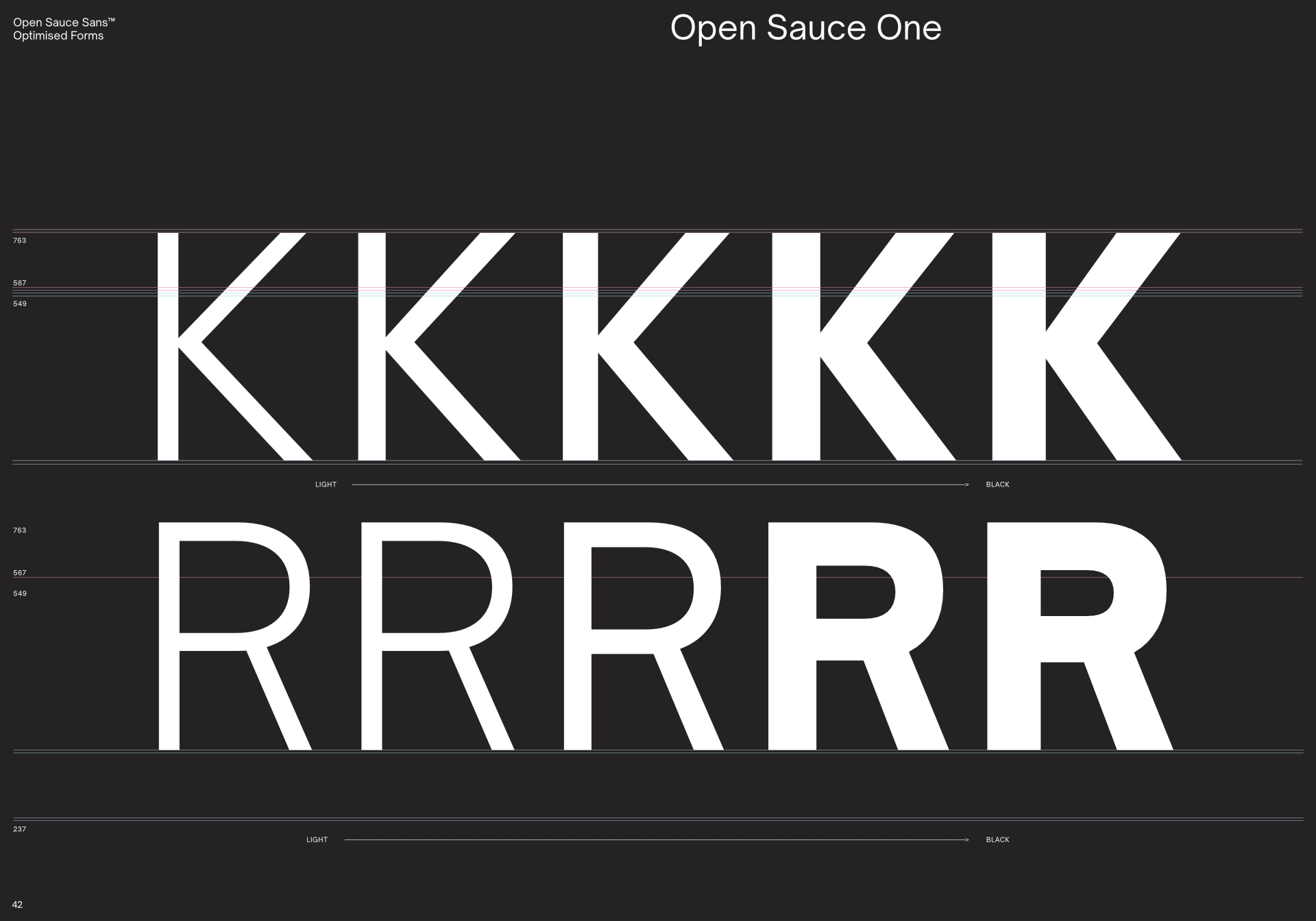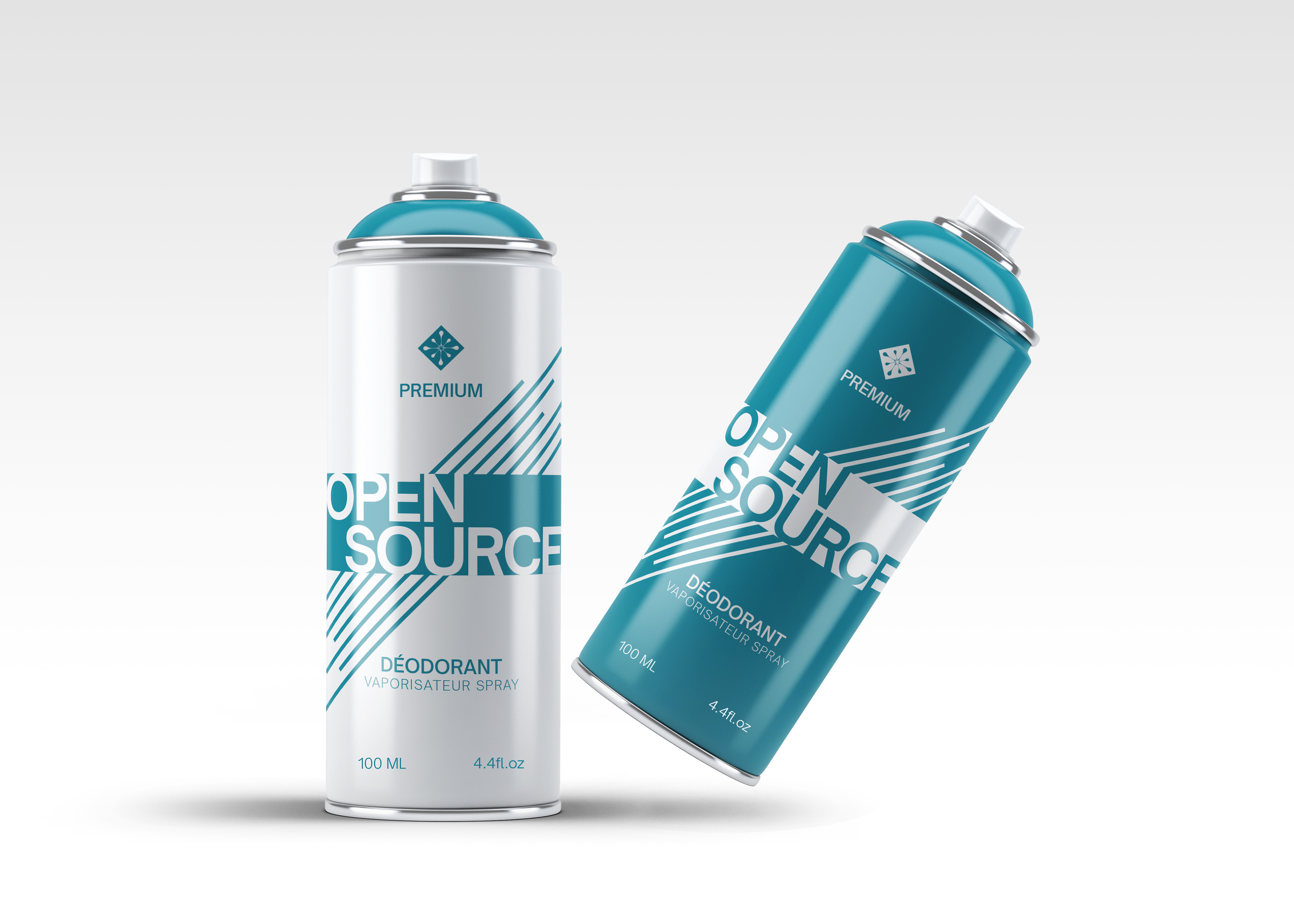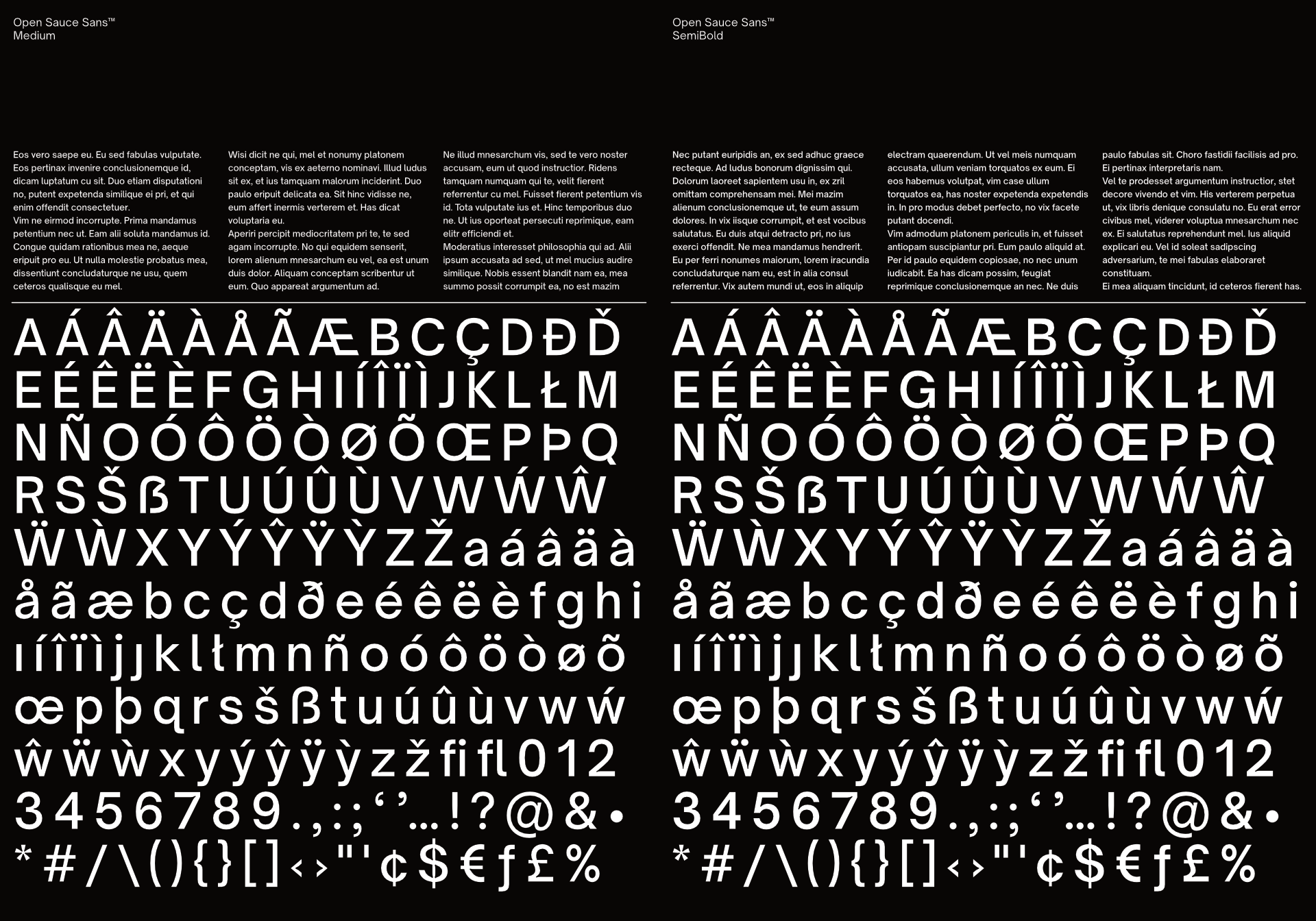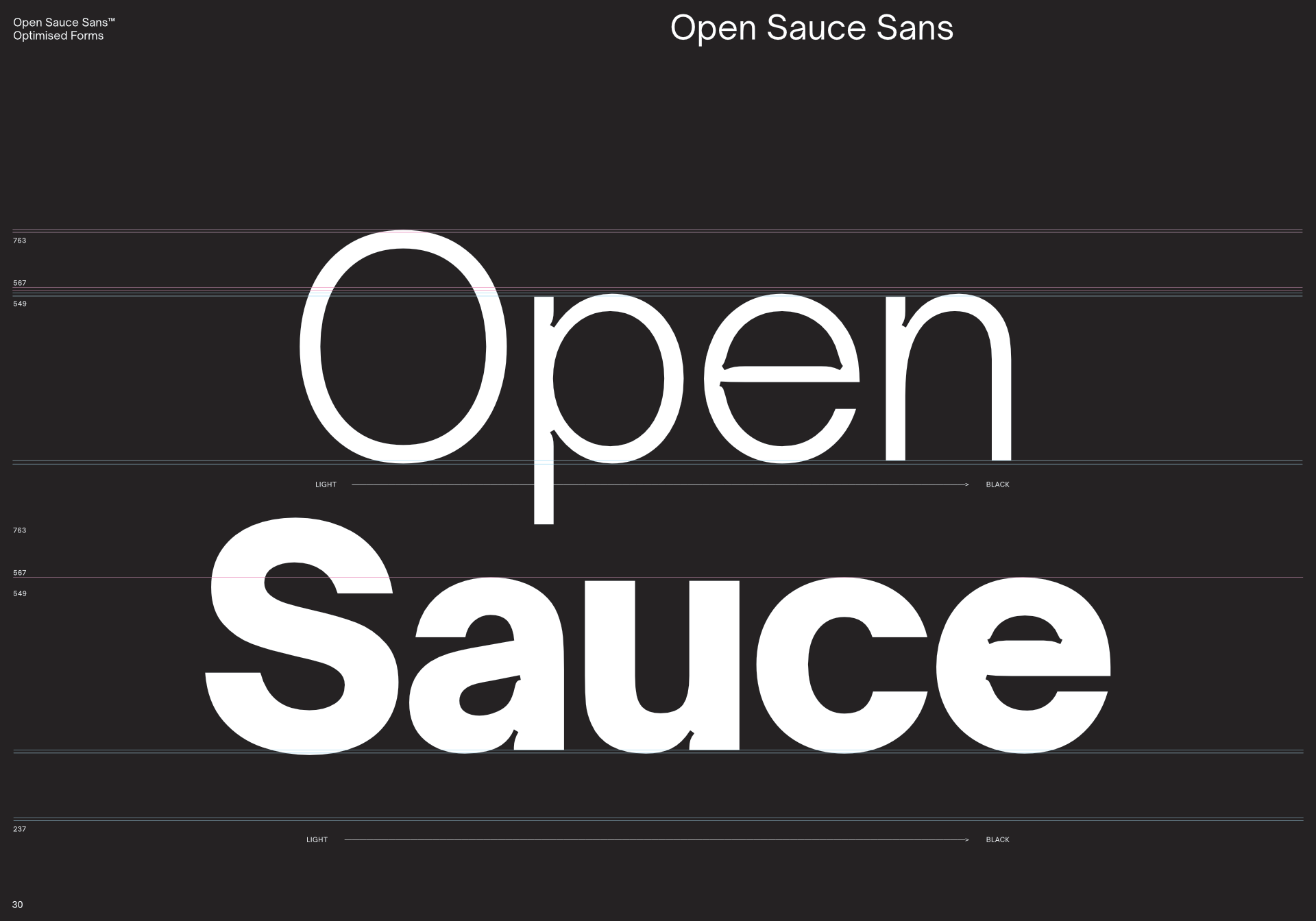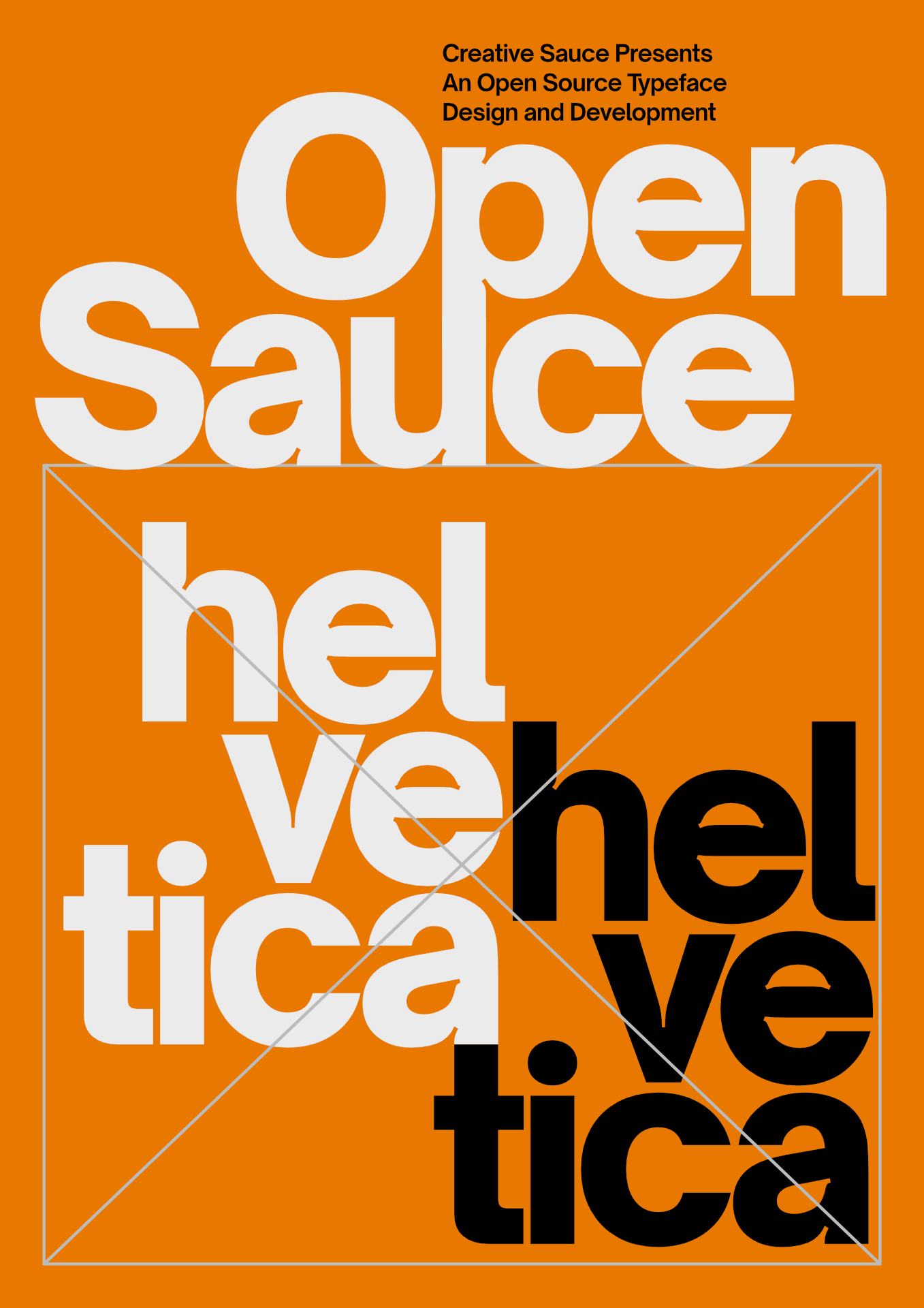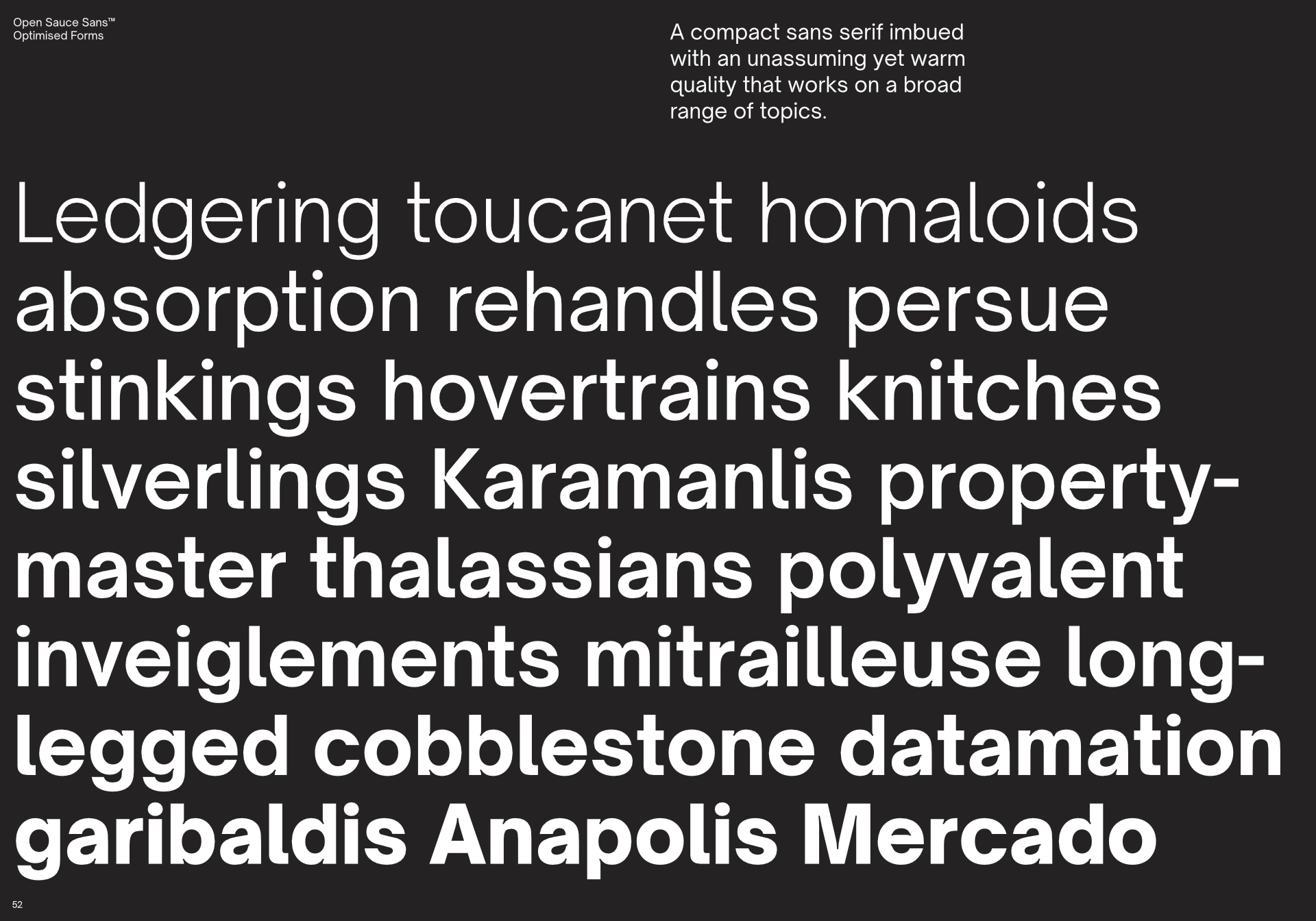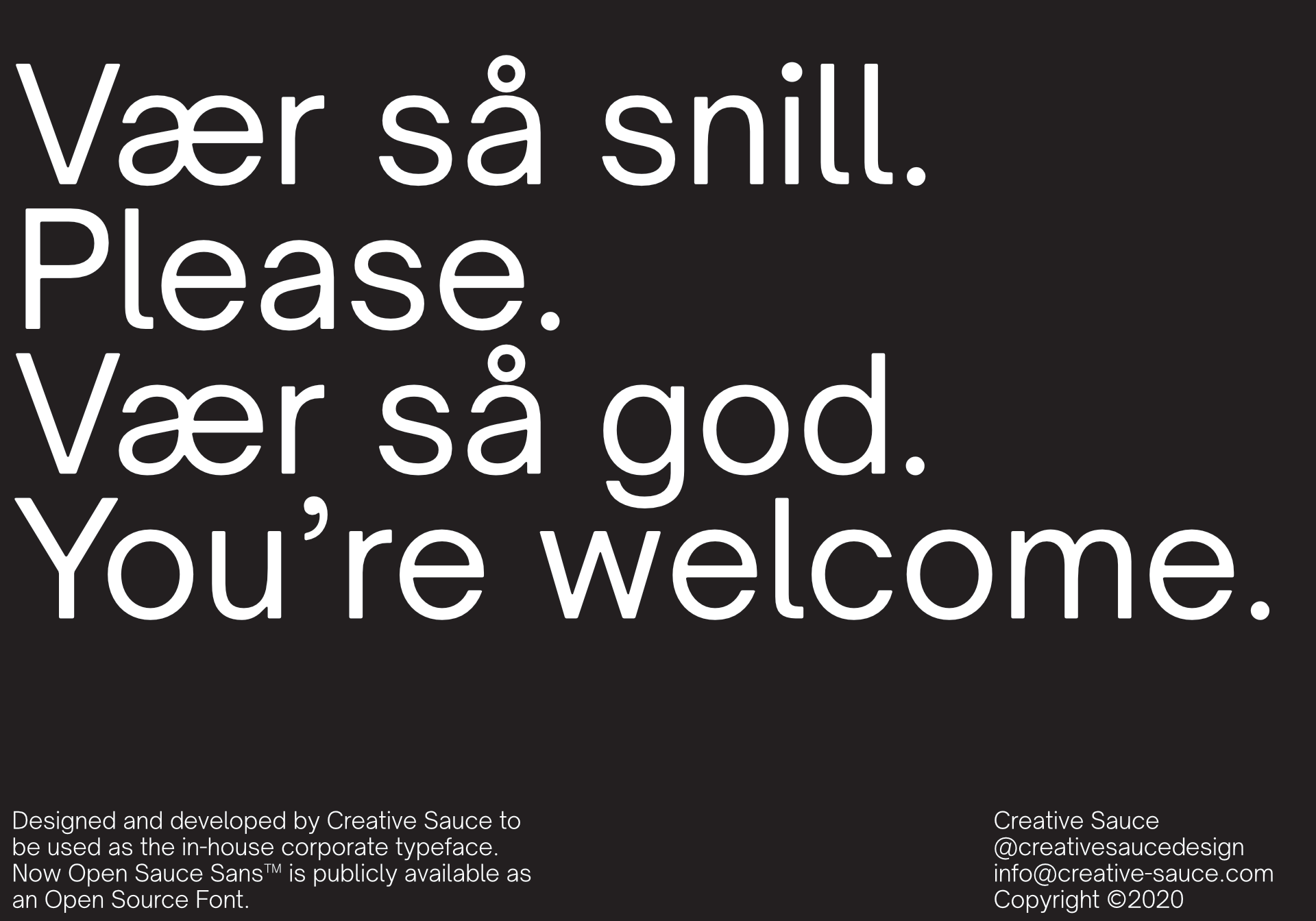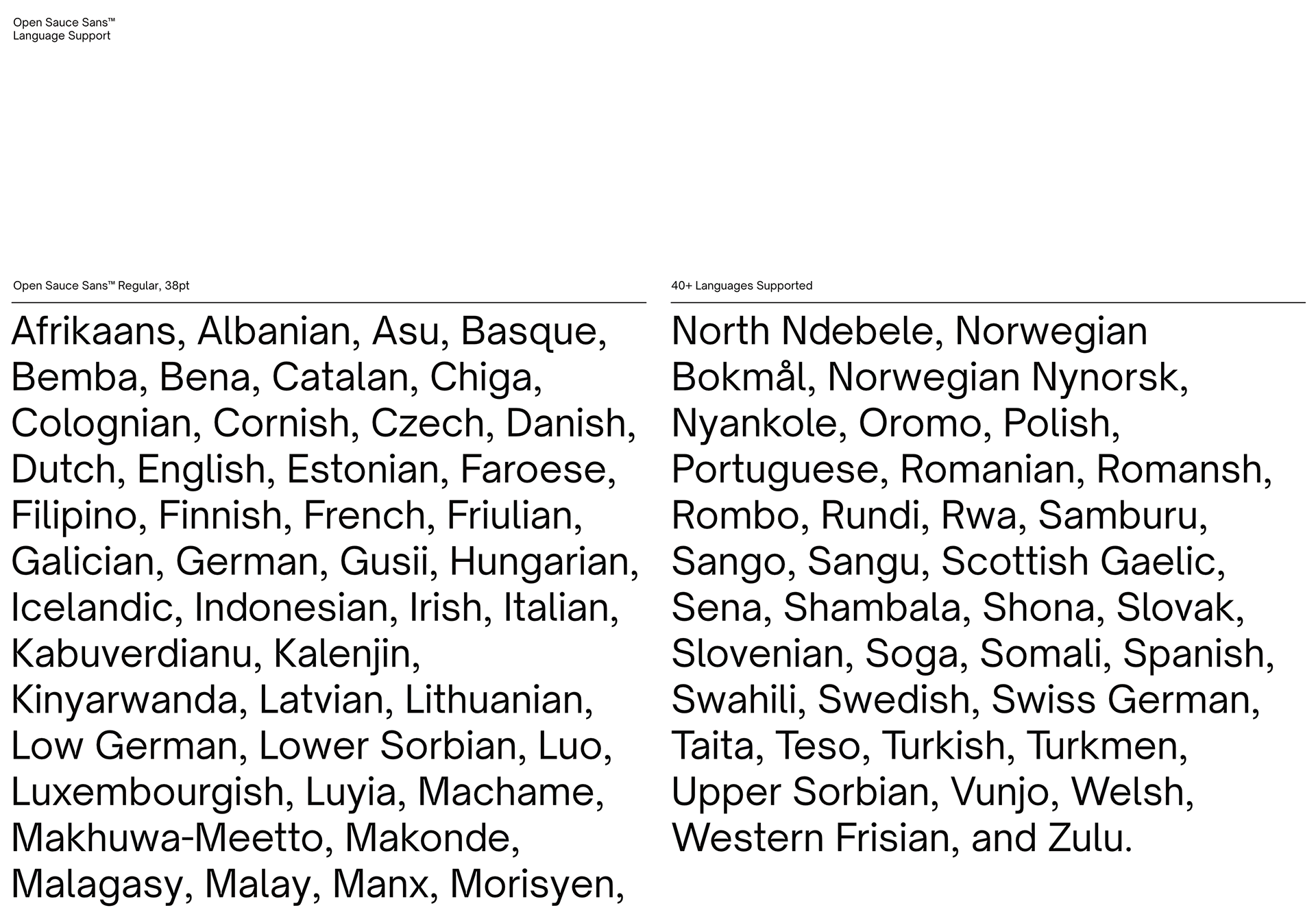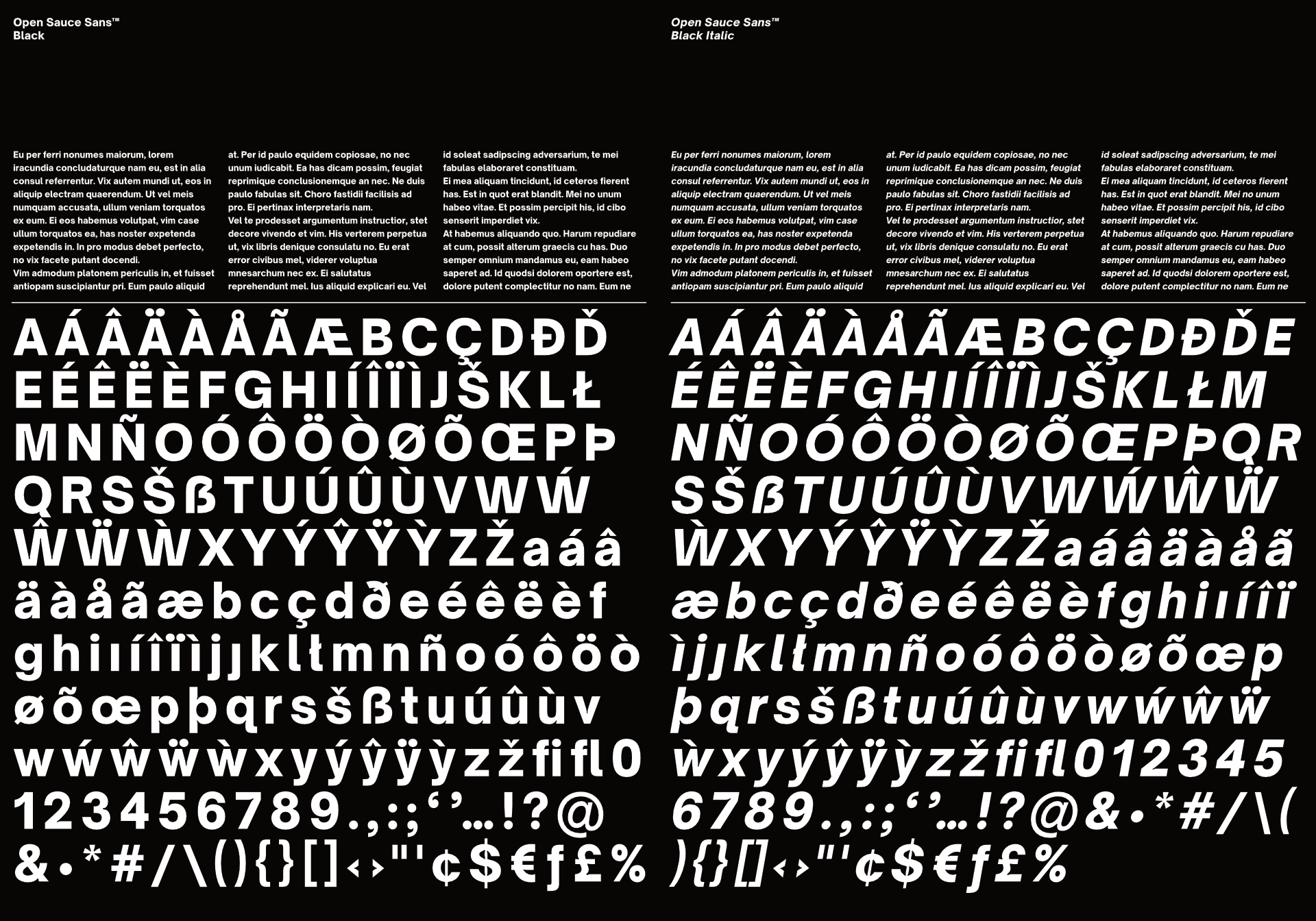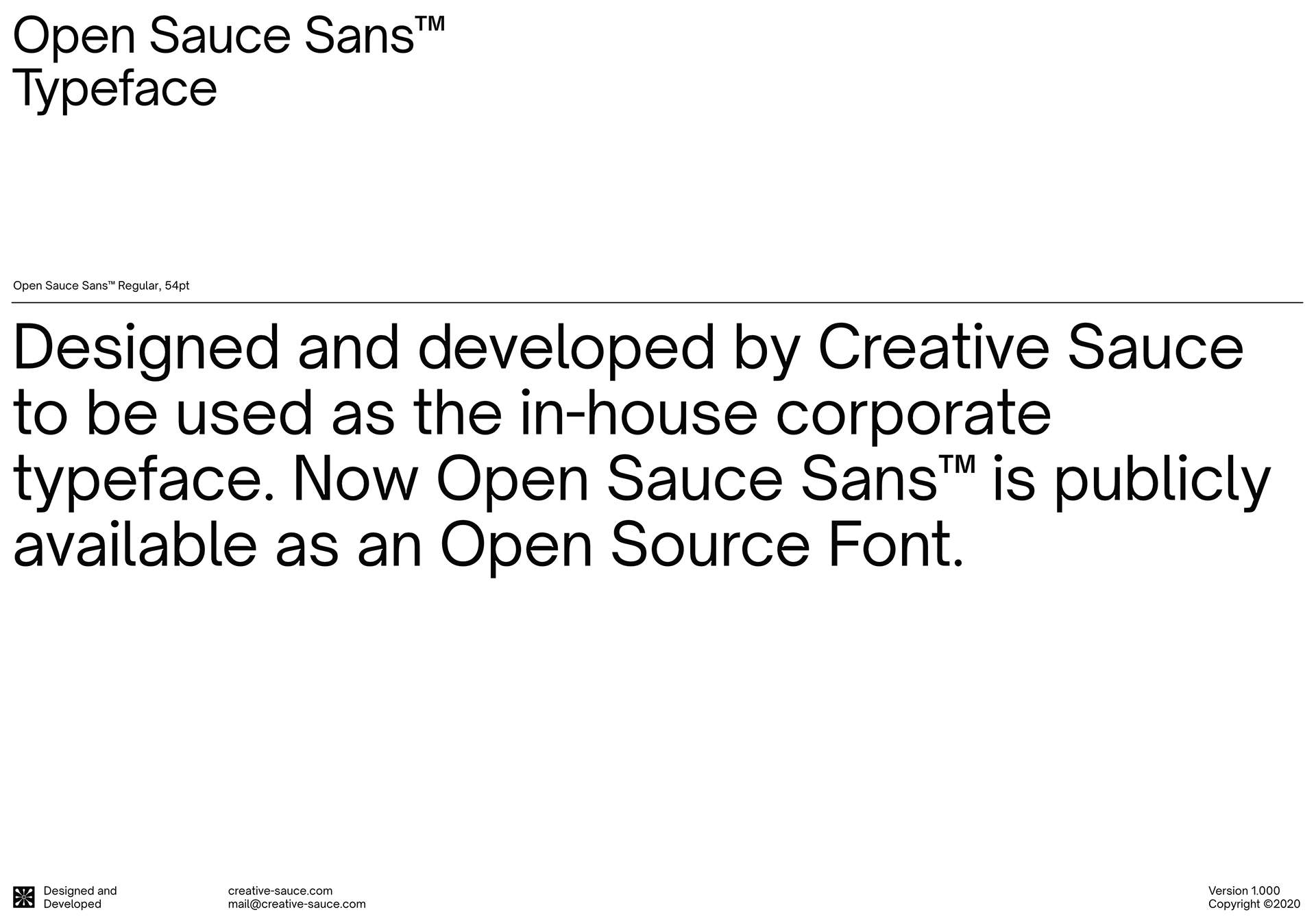
Open Sauce Sans™/Open Sauce One™/Open Sauce Two™ is a typeface that I developed for Creative Sauce's internal type system. It is a compact typeface that is optimised for better viewing small text on screen and print. Open Sauce Sans fonts are under the SIL Open Font License and is going to be actively developed, improved and tested.
Font Design/Development: Alfredo Marco Pradil
Company: Creative Sauce
Glyphs: 358
Styles: 42
Class: Sans Serif, Modern Grotesque
Open Sauce Sans™/Open Sauce One™/Open Sauce Two™ is a typeface that we developed for our internal type system. It is a compact typeface that is optimised for better viewing small text on screen and print. Open Sauce Sans fonts are under the SIL Open Font License and is going to be actively developed, improved and tested.
Company: Creative Sauce
Glyphs: 358
Styles: 42
Class: Sans Serif, Modern Grotesque